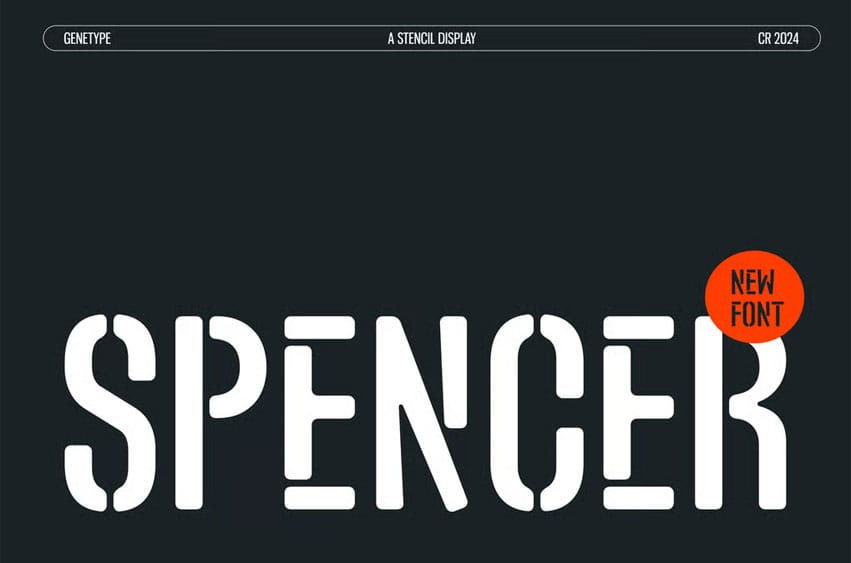
Spencer Font is a bold stencil display typeface inspired by industrial signage and utilitarian aesthetics. With its clean cuts and geometric construction, Spencer combines retro charm with modern precision, making it ideal for bold headlines, branding projects, and packaging design. This typeface captures the spirit of industrial typography with a contemporary twist — perfect for designers who want something edgy yet versatile.
Its unique stencil structure enhances readability while maintaining a distinctive, handcrafted feel suitable for logos, graphics, posters, and editorial layouts. Spencer includes uppercase and lowercase characters, numerals, punctuation, and multilingual support, available in OTF, TTF, and WOFF formats. Whether for a music event poster, vintage-inspired packaging, or an urban brand identity, Spencer brings personality, energy, and style to every project.
Spencer Font Preview